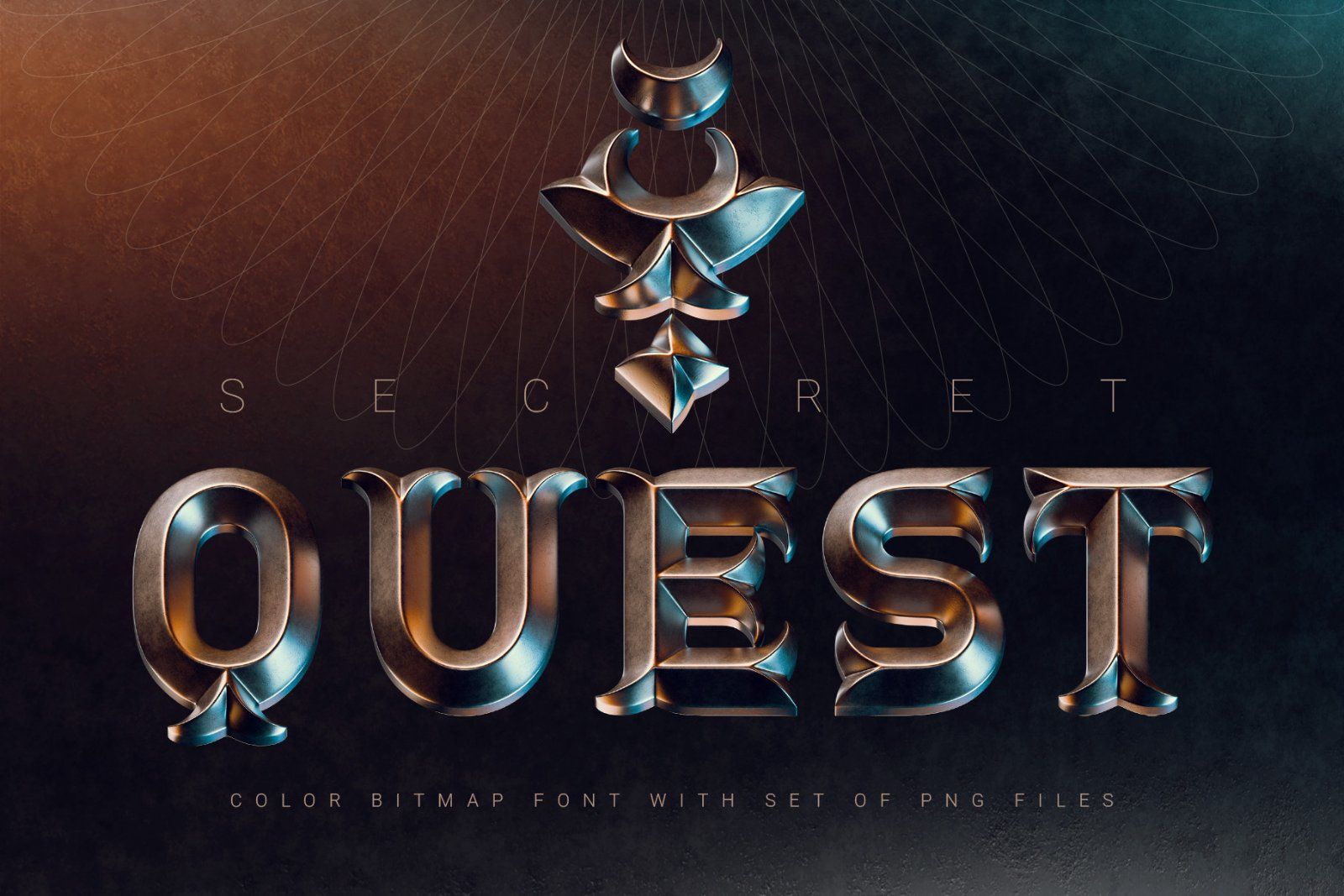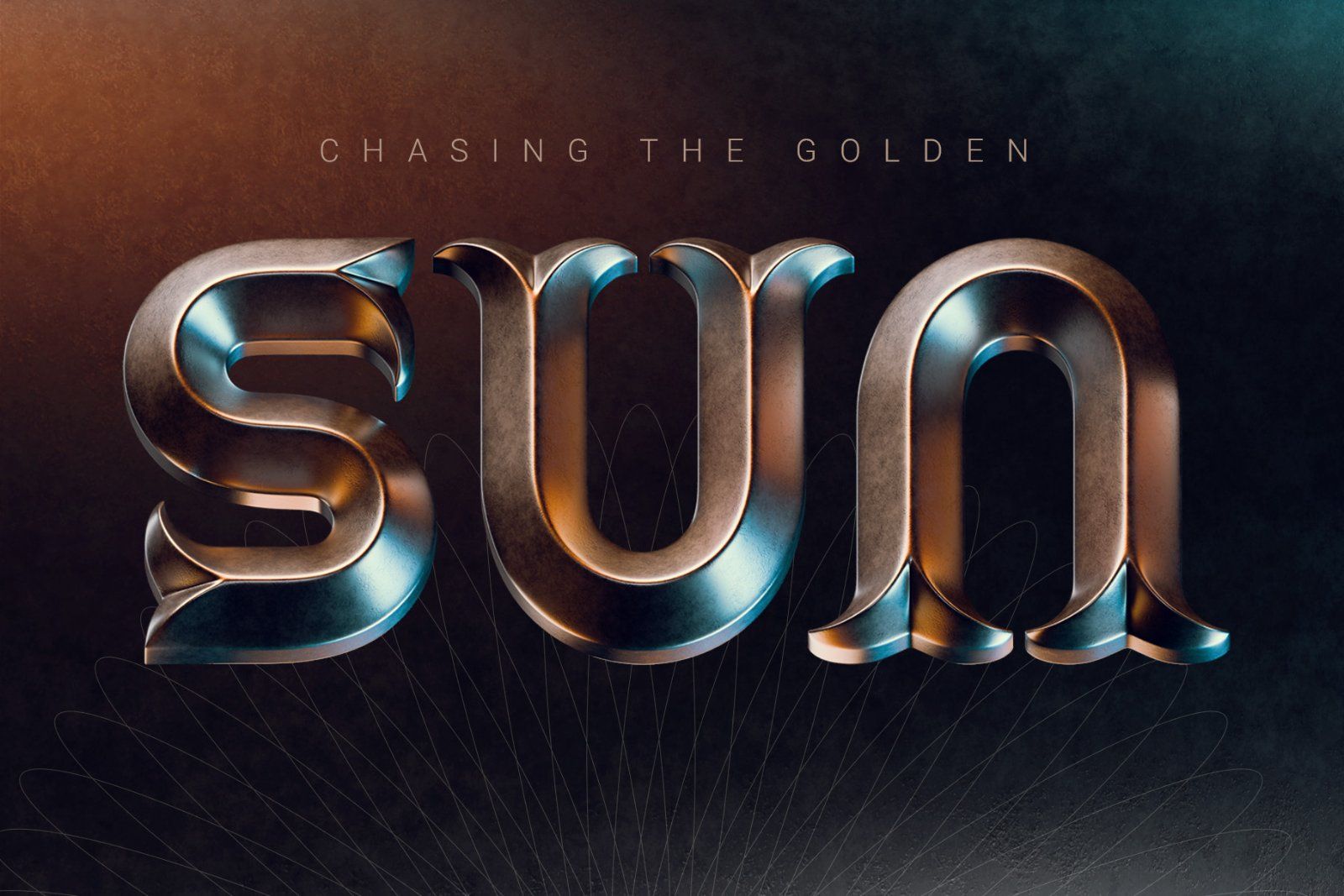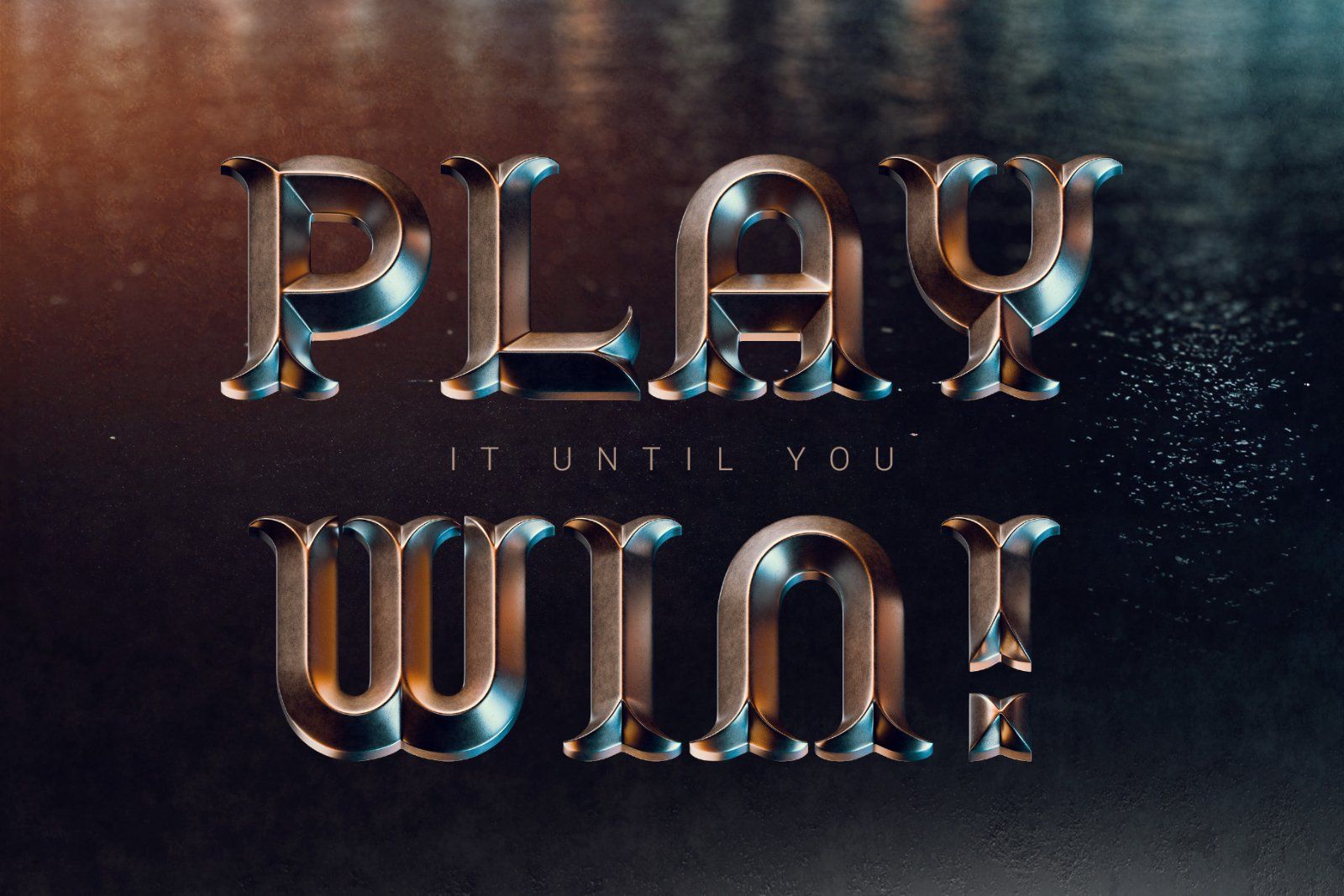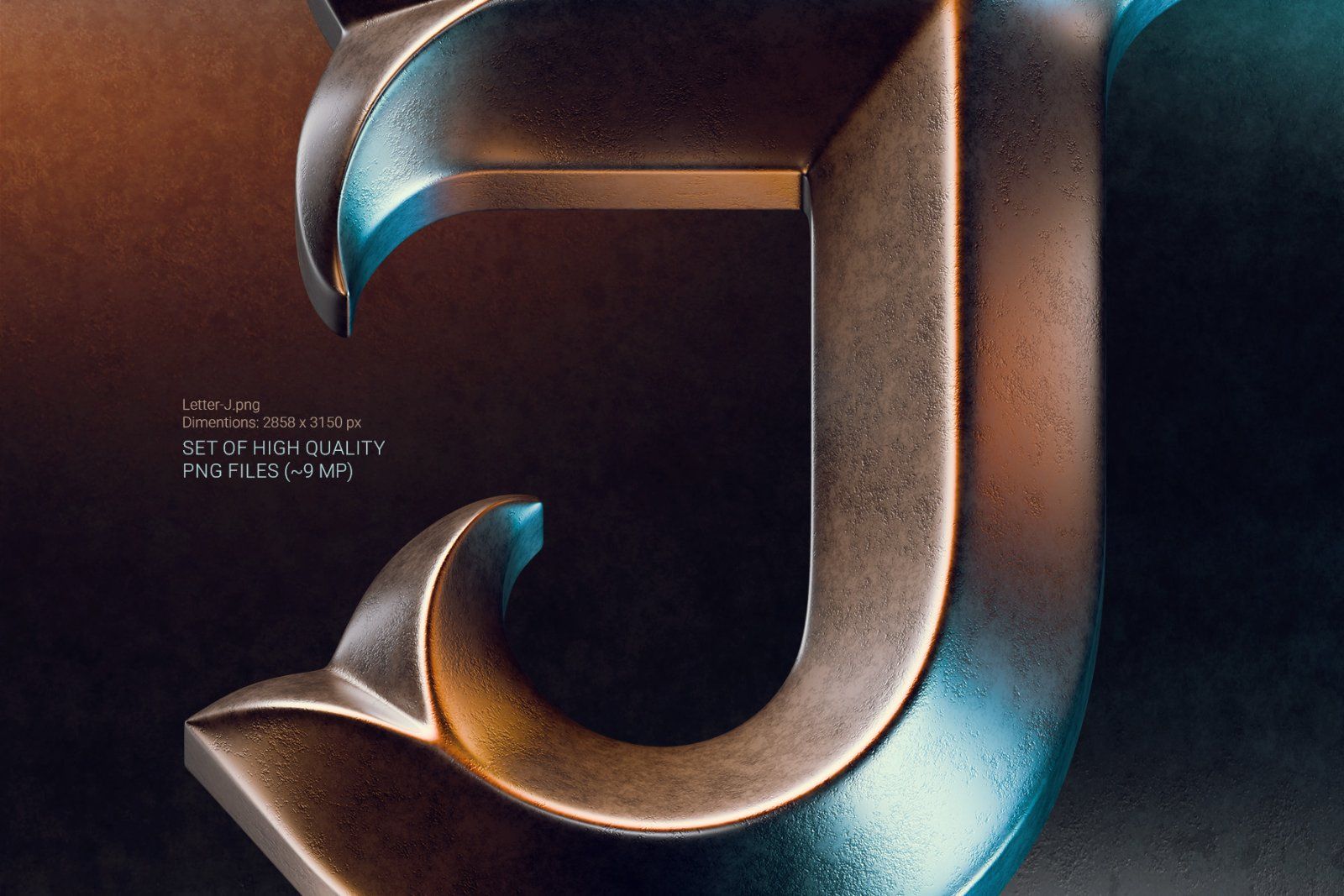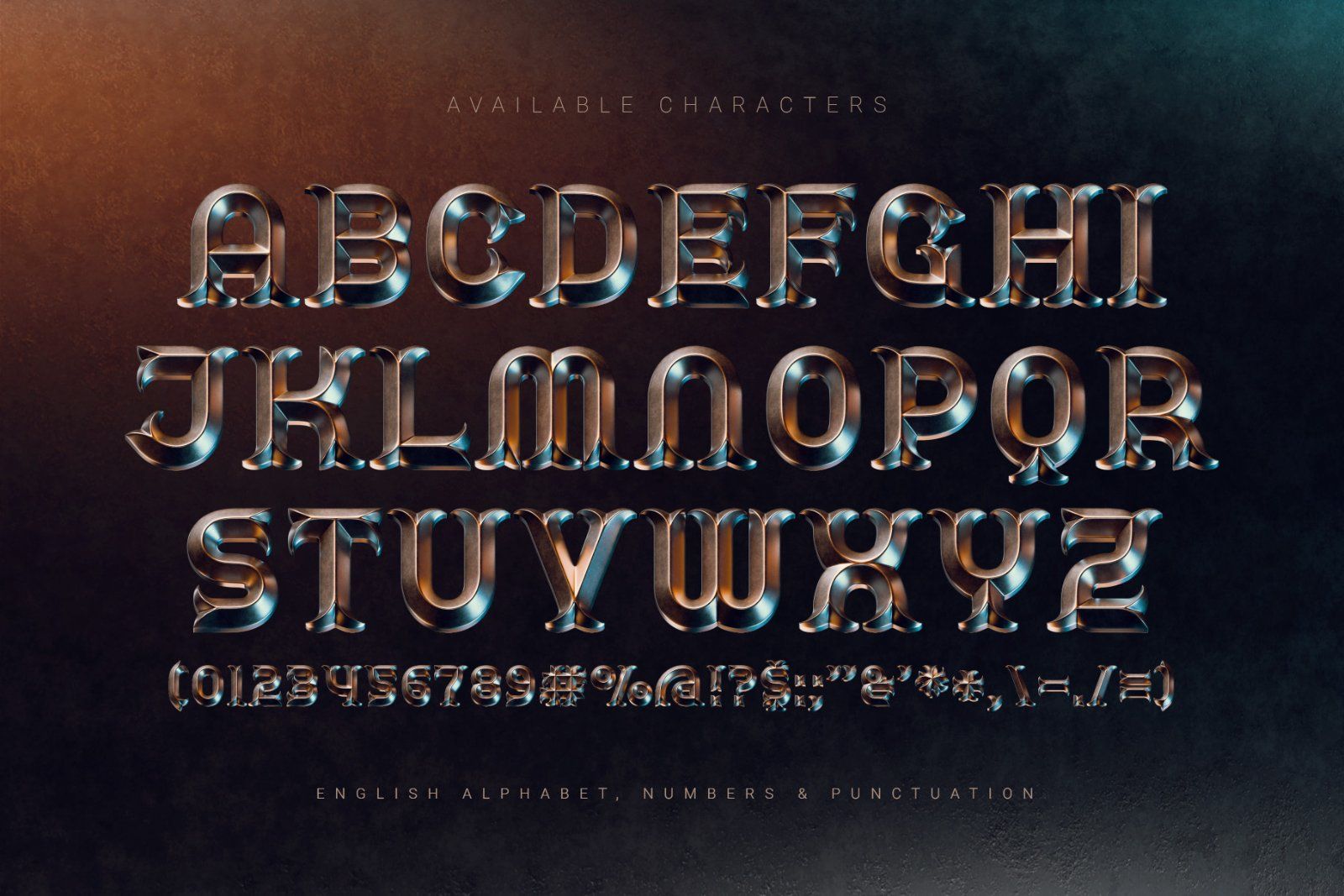
Secret Quest is a bold 3d color font featuring a realistic bronze metal finish and a classic medieval aesthetic. It’s a practical choice for adding depth and a fantasy feel to your titles, logos, and game designs.
Secret Quest is a color bitmap OpenType-SVG font, usable just like any standard OTF font. Additionally, the set includes high-resolution PNG files with transparent background (average resolution is 9 megapixels).
Consider that the font supports only the English language and basic punctuation. Be sure to review the included screenshot for a complete list of available characters.